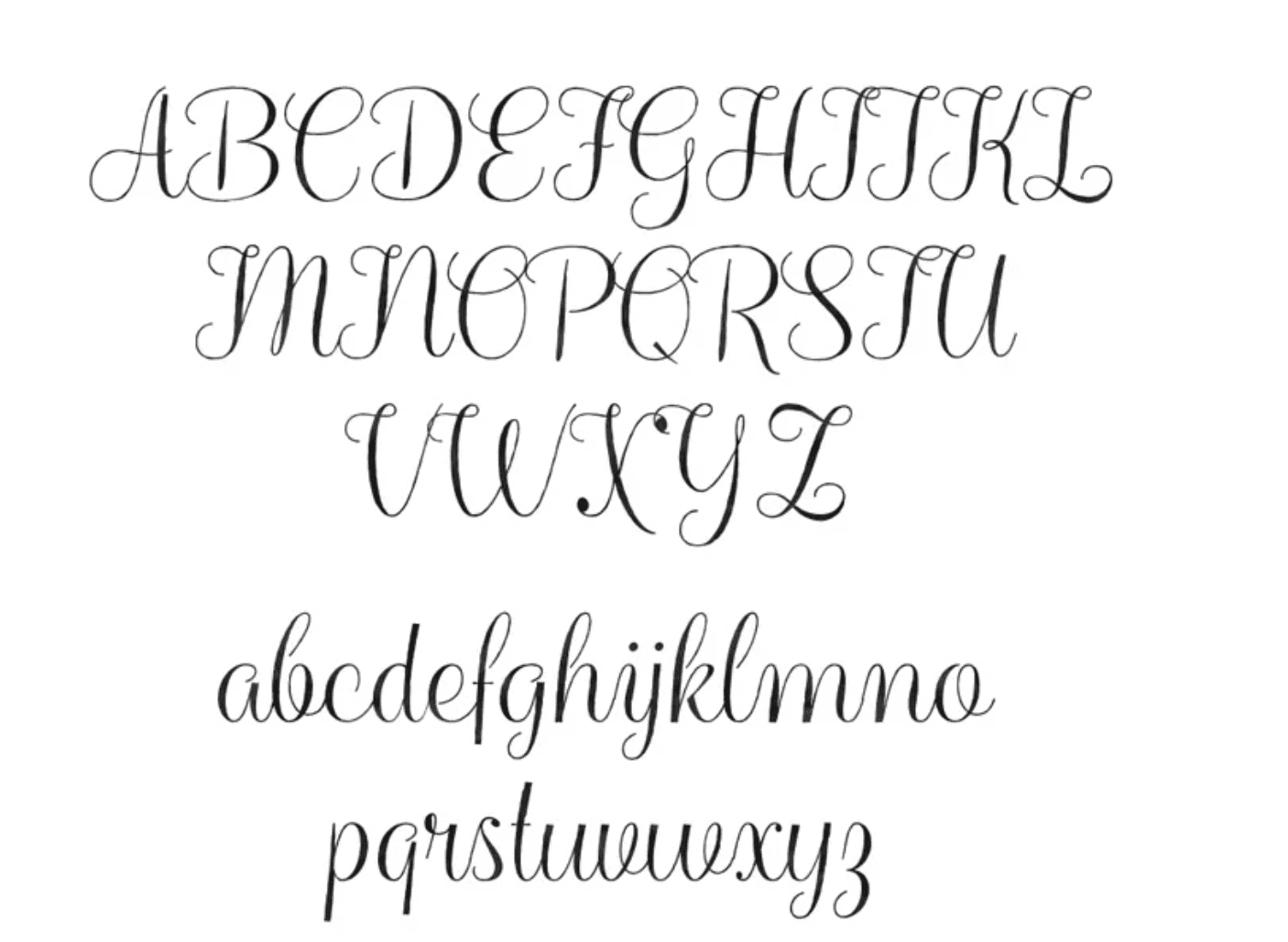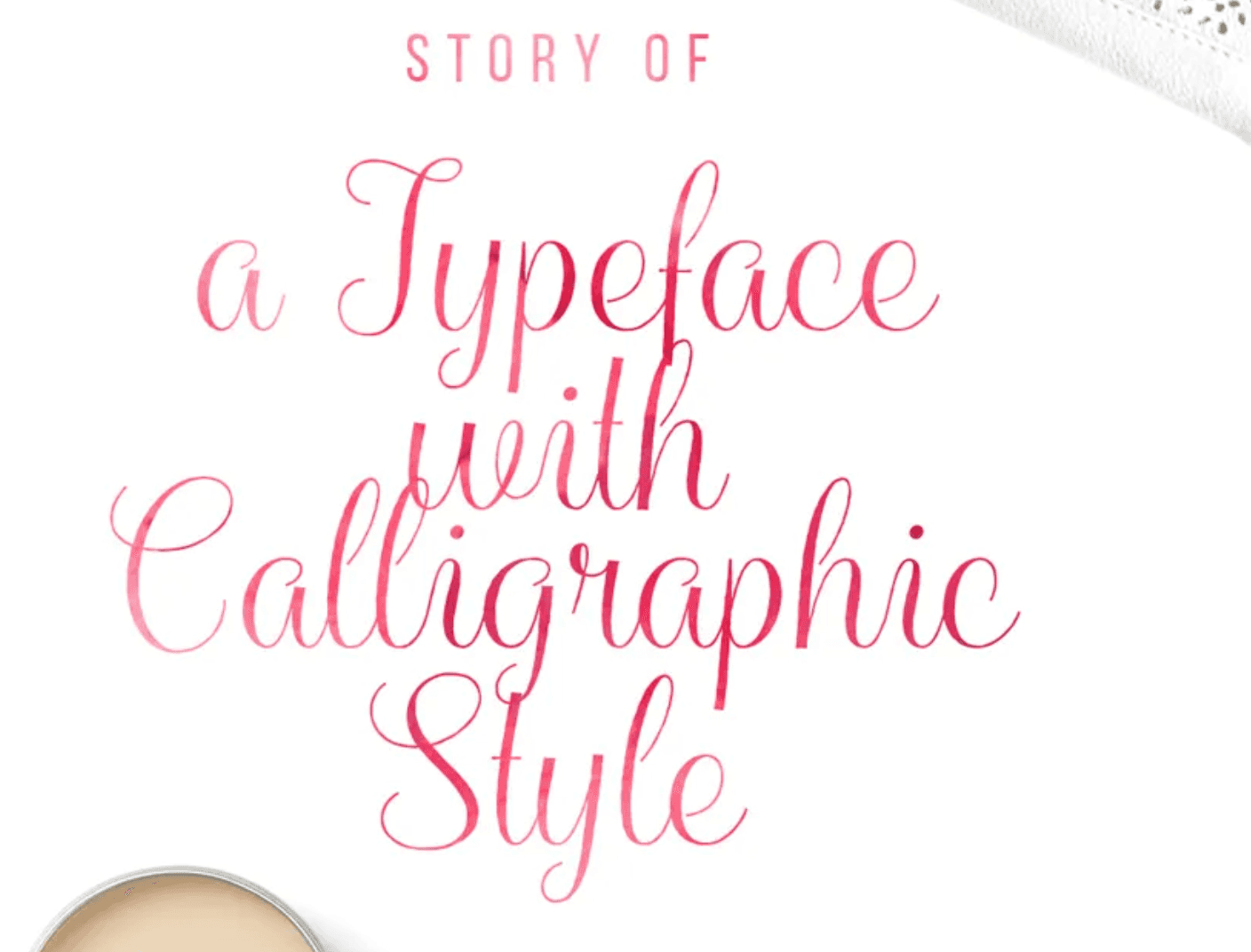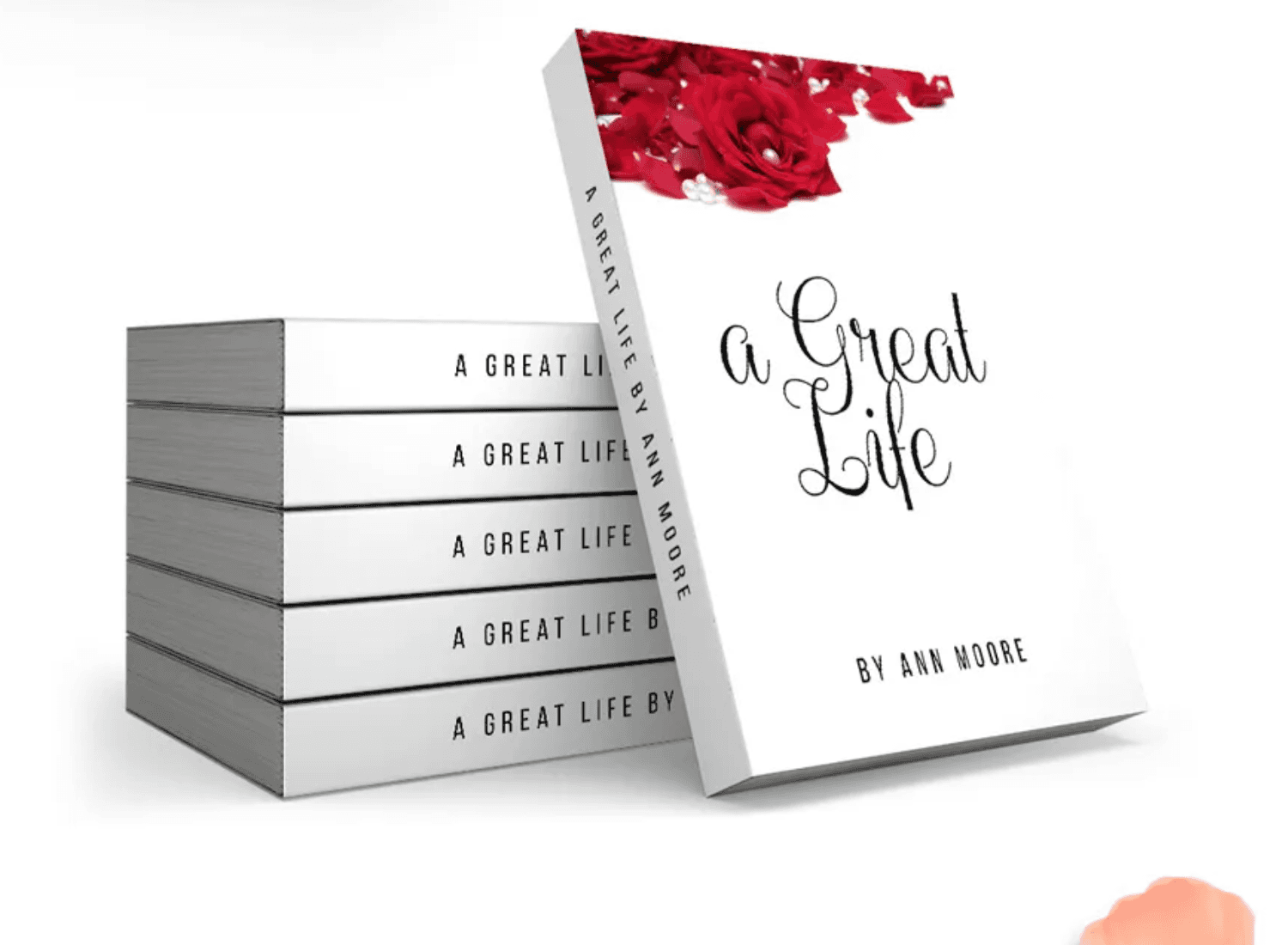
Balqis Free Font
Balqis is a feminine striped-rough calligraphy typeface that presents casual and natural feeling. It has a high contrast and very legible as a script font. Suitable for wedding invitations, greeting card designs, logos, or everything you may think it suits. Balqis Free Font available in OTF and TTF format.